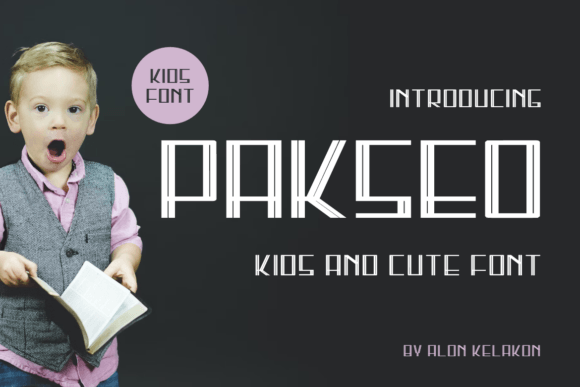
Prepare to be mesmerized by Pakseo Font, the sans serif font that will revolutionize your creative projects. With its clean lines, captivating curves, and unique design, Pakseo Font is the perfect choice for those seeking an extraordinary font that exudes elegance and charm.
Indulge in the versatility of Pakseo Font, effortlessly adaptable to a wide range of designs—from eye-catching movie titles and captivating album covers to chic logos and trendy posters. Unleash your creativity and watch your visions come to life with a font that elevates the ordinary to the extraordinary.
Step into the world of Pakseo Font and discover a universe of possibilities. Picture your designs adorned with its graceful strokes, transmitting sophistication and poise. Enchant your audience with visuals that captivate their senses and leave a lasting impression.
With Pakseo Font, you hold the key to unlock the true potential of your creations. Its timeless beauty and distinctive character will elevate your work, making it stand out from the crowd. Embrace Pakseo Font and embark on a creative journey like never before.